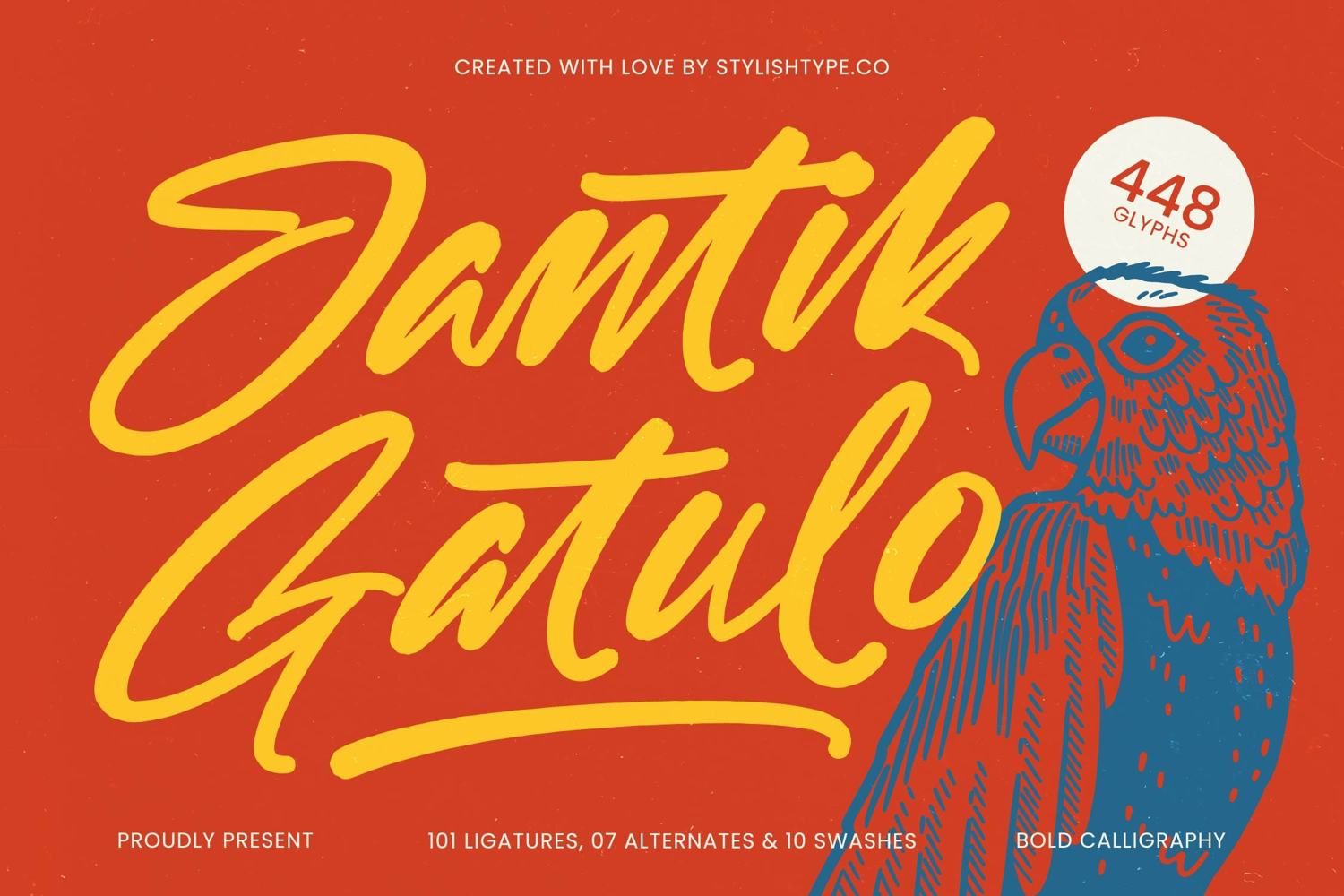
Jantik Gatulo - Bold Calligraphy Font
Jantik Gatulo
Jantik Gatulo Italic
Achieve truly bespoke typographic outcomes. Elevate your design projects with an extraordinary level of customization. Jantik Gatulo - Bold Calligraphy Font is fully equipped with an extensive suite of over 448 glyphs, including 101 stylistic ligatures, 7 alternates, and 10 impressive swashes. These rich OpenType features allow designers to create unique wordmarks and highly customized text layouts that avoid repetition, guaranteeing a truly personalized and high-impact display for any creative endeavor.